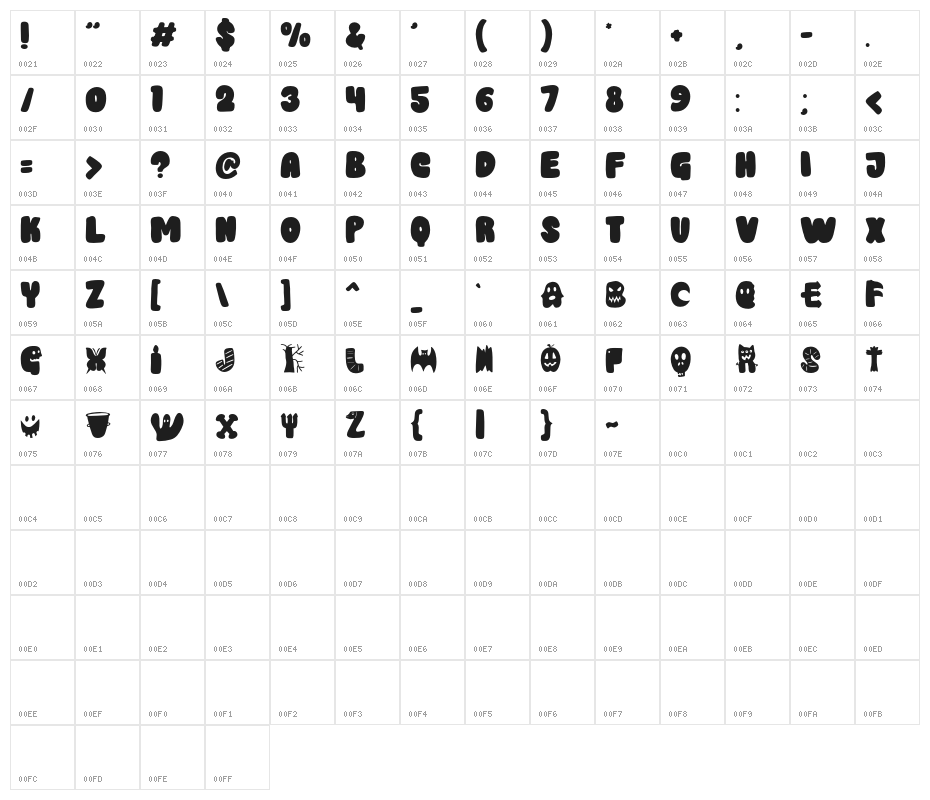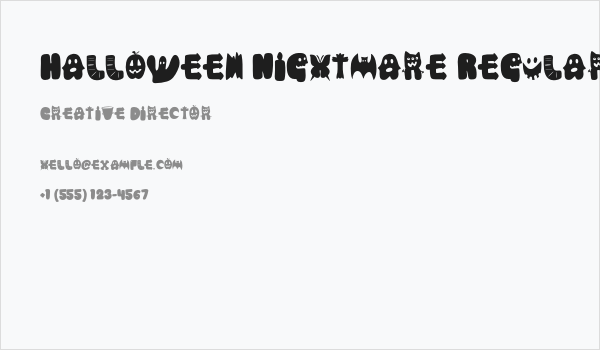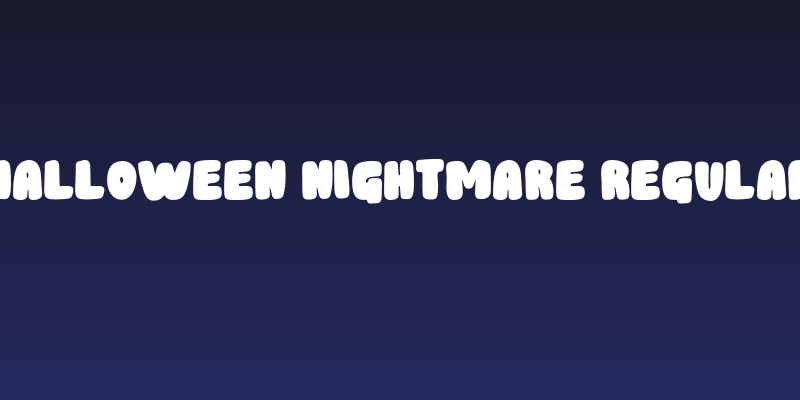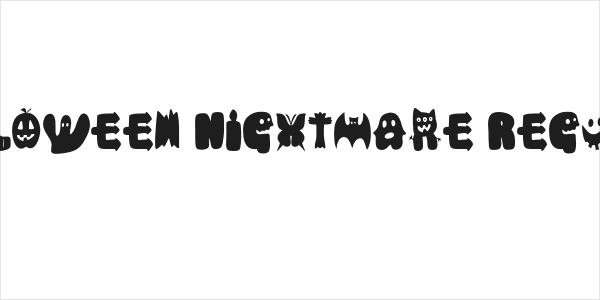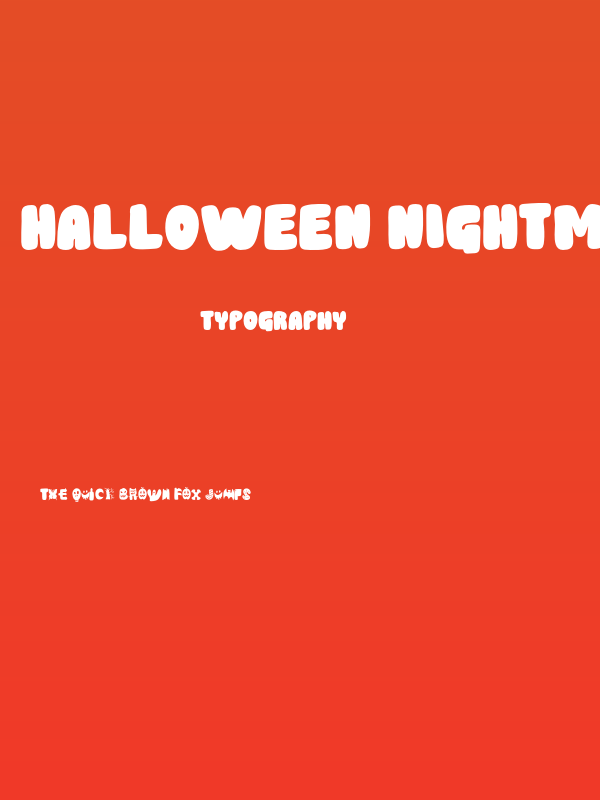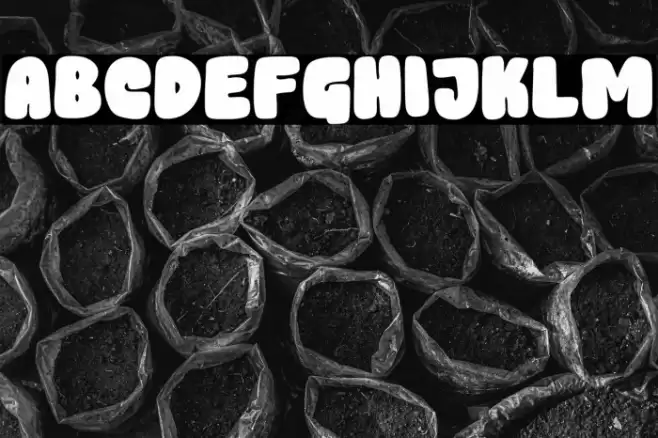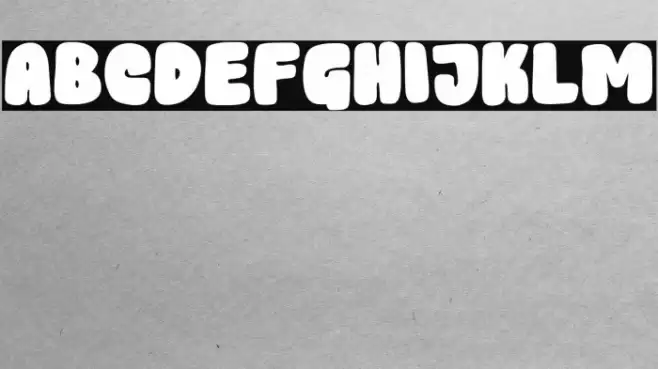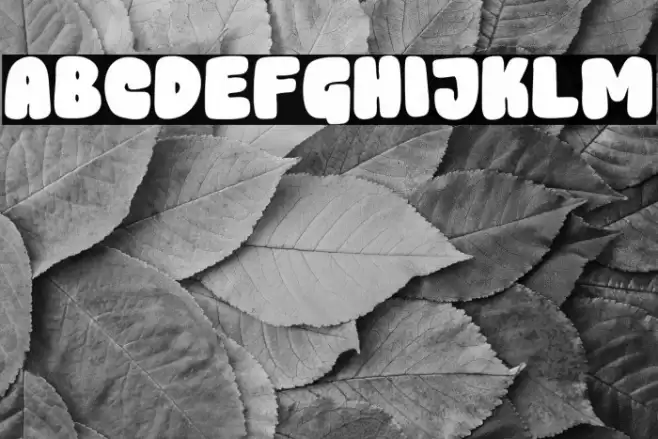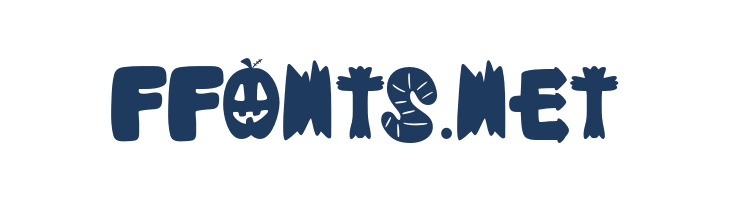
Halloween Nightmare Regular Font
Halloween Nightmare Regular Description
This font exudes a playful yet eerie vibe, perfect for Halloween-themed projects. Each character is creatively designed with spooky elements such as ghosts, bats, and monsters, adding a unique and whimsical touch. The bold and rounded shapes give it a friendly appearance, while the intricate details within each letter enhance its decorative nature. The font maintains a consistent weight and width, ensuring readability despite its elaborate design. Its high contrast and distinctive style make it ideal for capturing attention and conveying a festive, spooky atmosphere.
| Proposed Projects | Ideal for Halloween party invitations, themed posters, children's books, and festive decorations. |